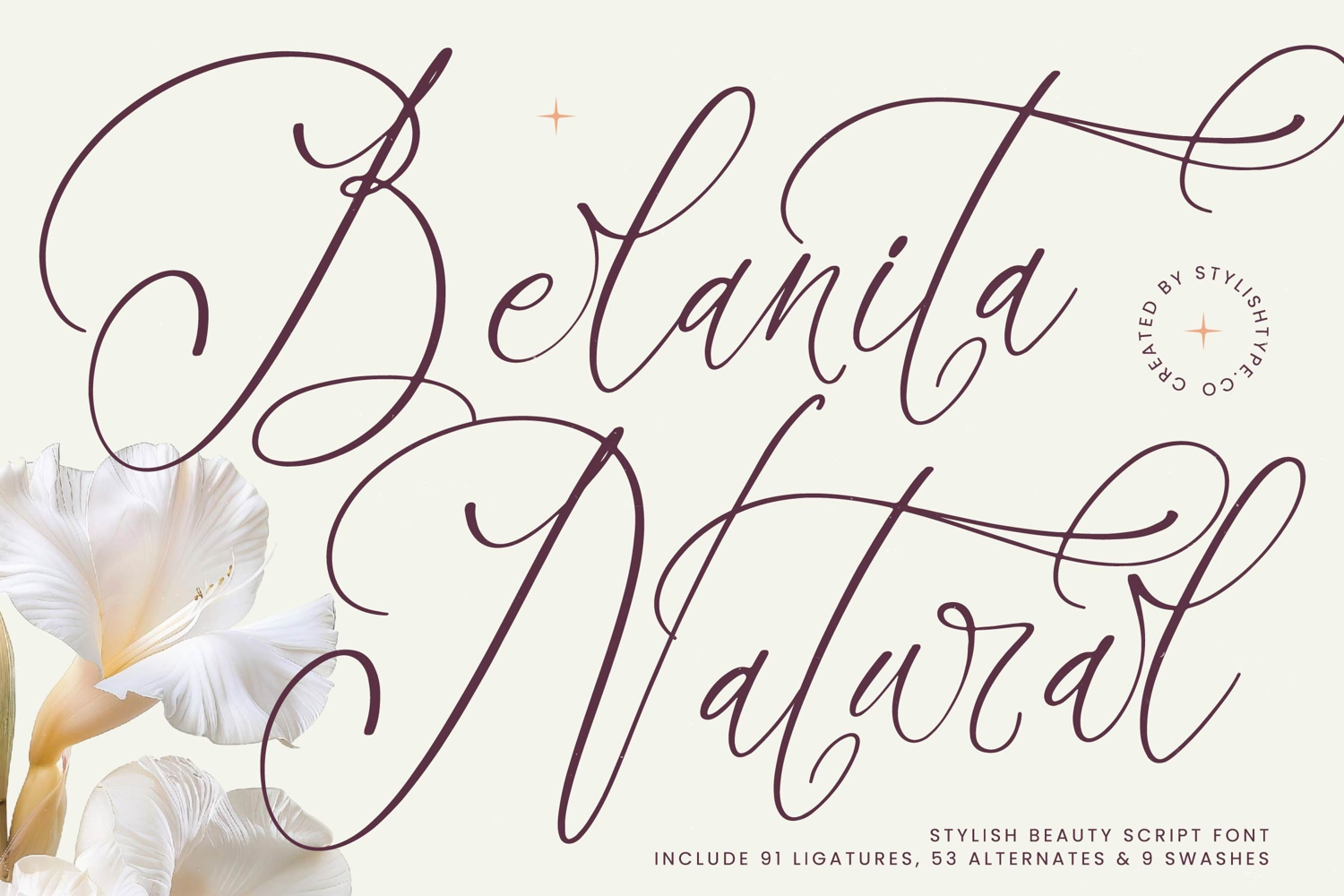
Belanita Natural - Stylish Beauty Script Font
Belanita Natural Italic
Belanita Natural
Natural - Stylish Beauty Script Font is not merely a font; it’s a complete typographic toolkit designed for true customization. Packed with 91 discretionary ligatures, 53 stylistic alternates, and 9 expressive swashes, designers gain unprecedented control over letter sequencing and overall composition. This rich feature set ensures that every headline feels genuinely unique and handcrafted, indispensable for achieving that perfect, customized aesthetic.